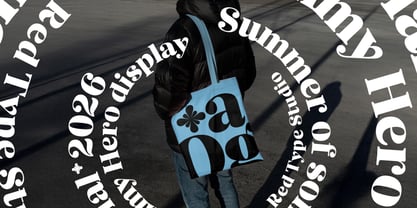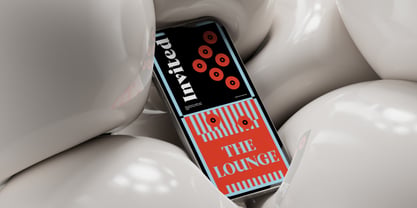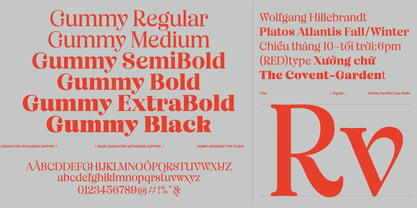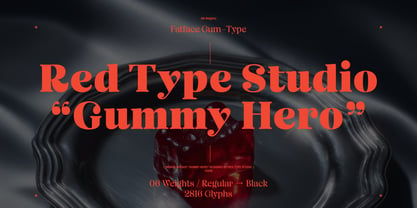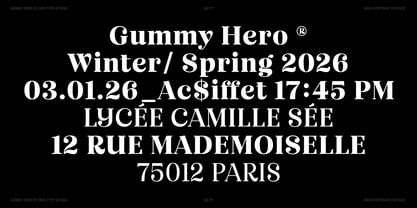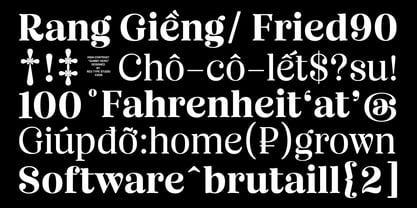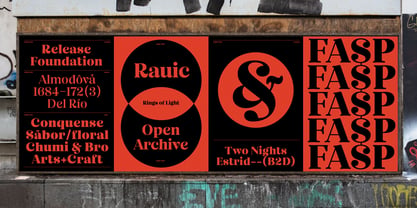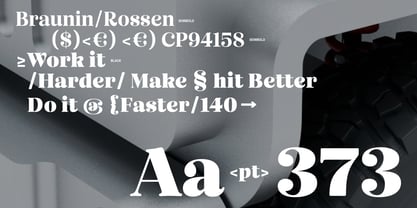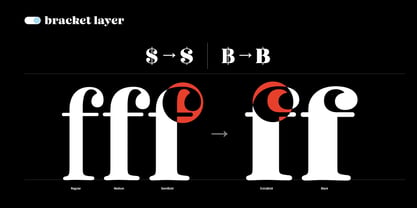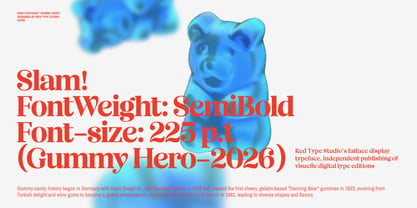
Gummy Hero
Gummy Hero is a high-contrast, "soft-serif" display typeface that beautifully merges 1970s retro charm with a contemporary, liquid energy. Characterized by its bulbous terminals, concave serifs, and unique scooped curves—especially evident in the lowercase "v" and "y"—this typeface creates a rhythmic, organic feel. Available in lighter and medium weights, Gummy Hero exudes an elegant, airy sophistication, making it perfect for expressive headlines, editorial layouts, and branding that captures both nostalgia and freshness. Its distinctive style is ideal for projects that seek to evoke a sense of warmth and creativity, ensuring your message stands out with personality and flair.
After nearly a decade self-navigating in the waters of Western calligraphy, I’m steering boldly into a new world: type design. Does the world need another typeface? With thousands already out there, you’d think not. But every new typeface brings something unique, and I’m here to add more finesse—handcrafted and precise. Some typefaces make waves. Mine, however, are the quiet currents—steady, subtle, and exactly what everyone wants and needs.